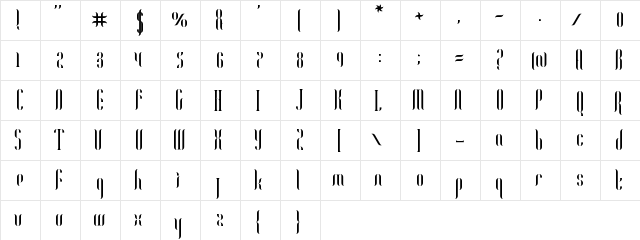
Unnipolis Regular
| Foundry | xa0tik |
| Designer | Izorkin Anton |
Design Context for Unnipolis Typeface
Unnipolis is a composed and adaptable typeface that performs quietly and consistently across a wide range of design contexts.